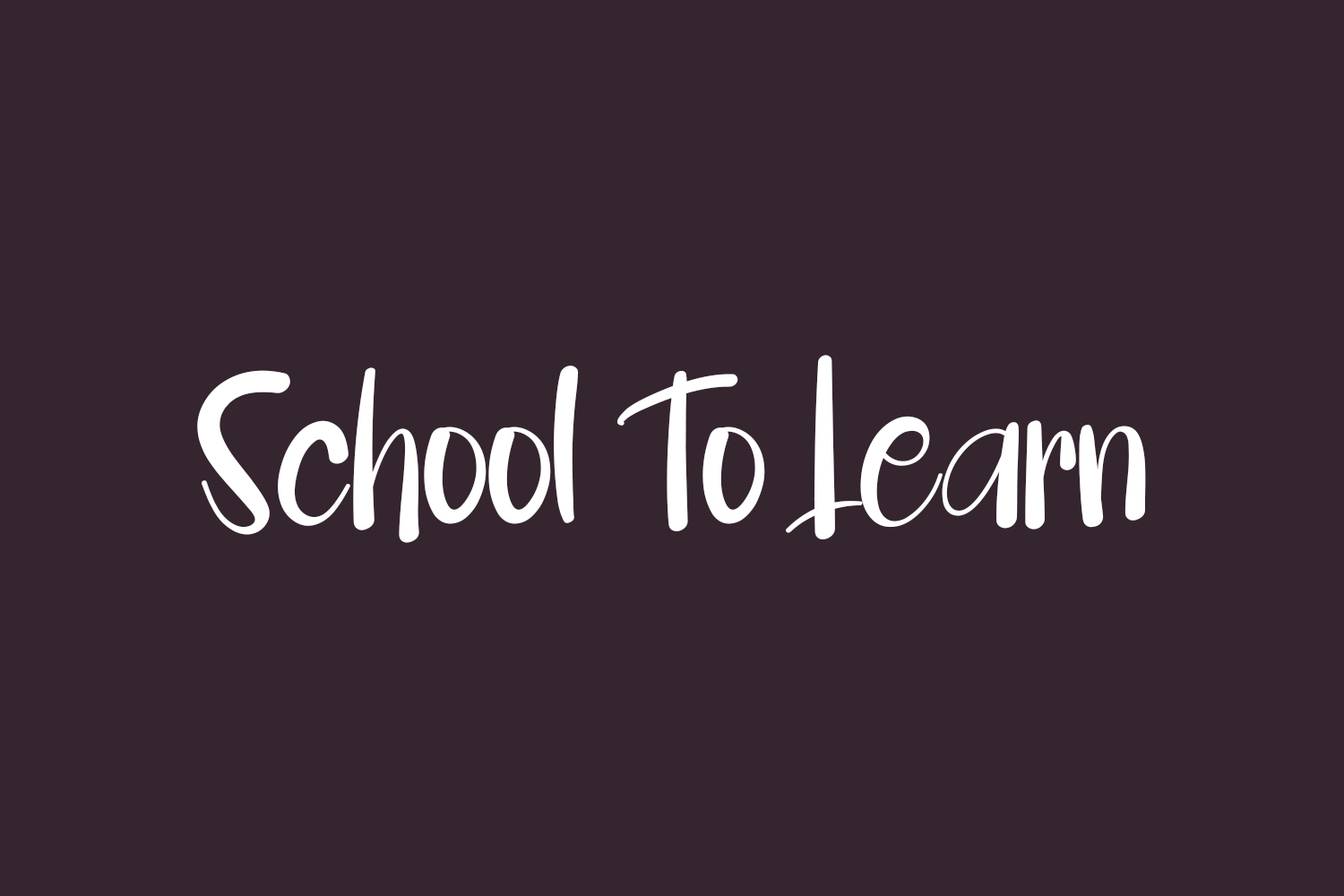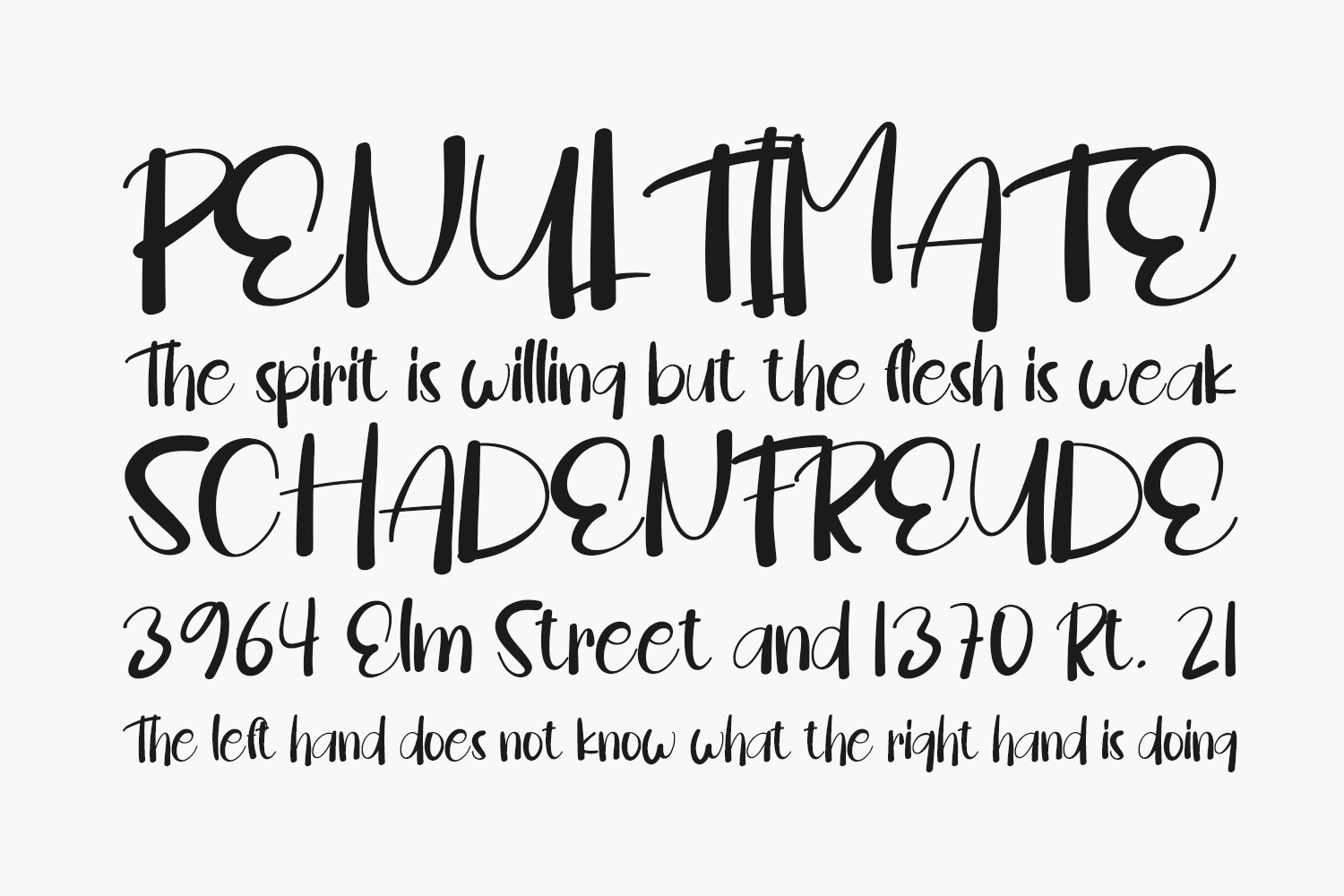
School To Learn Free Font is a laid-back and casual handwritten font. Whatever the topic, this font will be a wonderful asset to your font library, as it has the potential to enhance any creation. School To Learn Free Font was designed by Gado Gado and is free for personal use only. Please purchase the full version for commercial use.